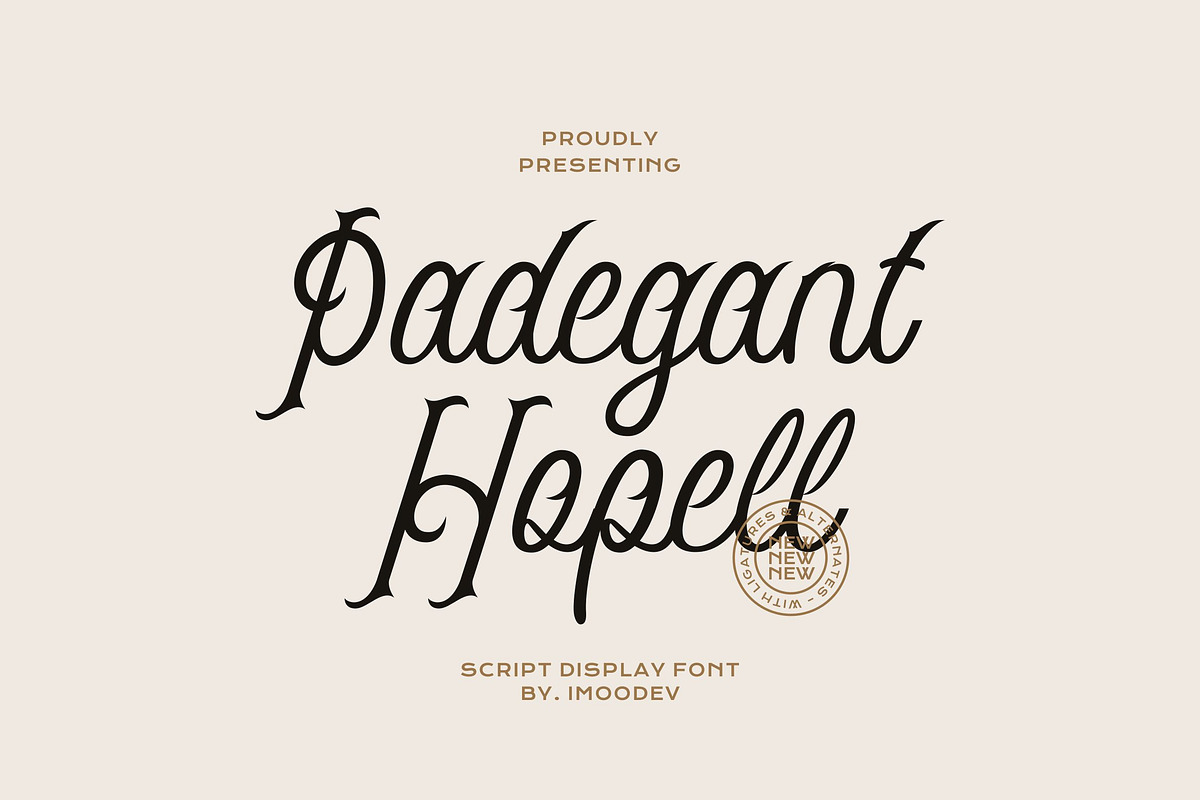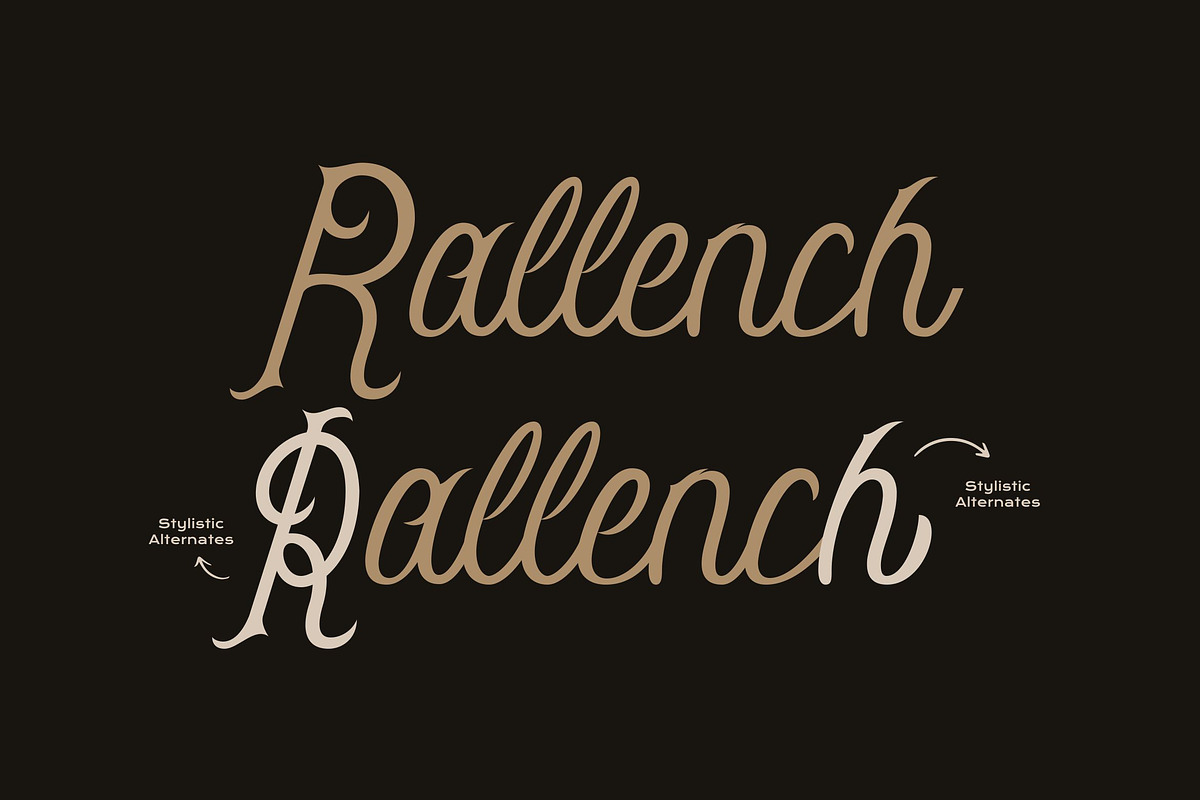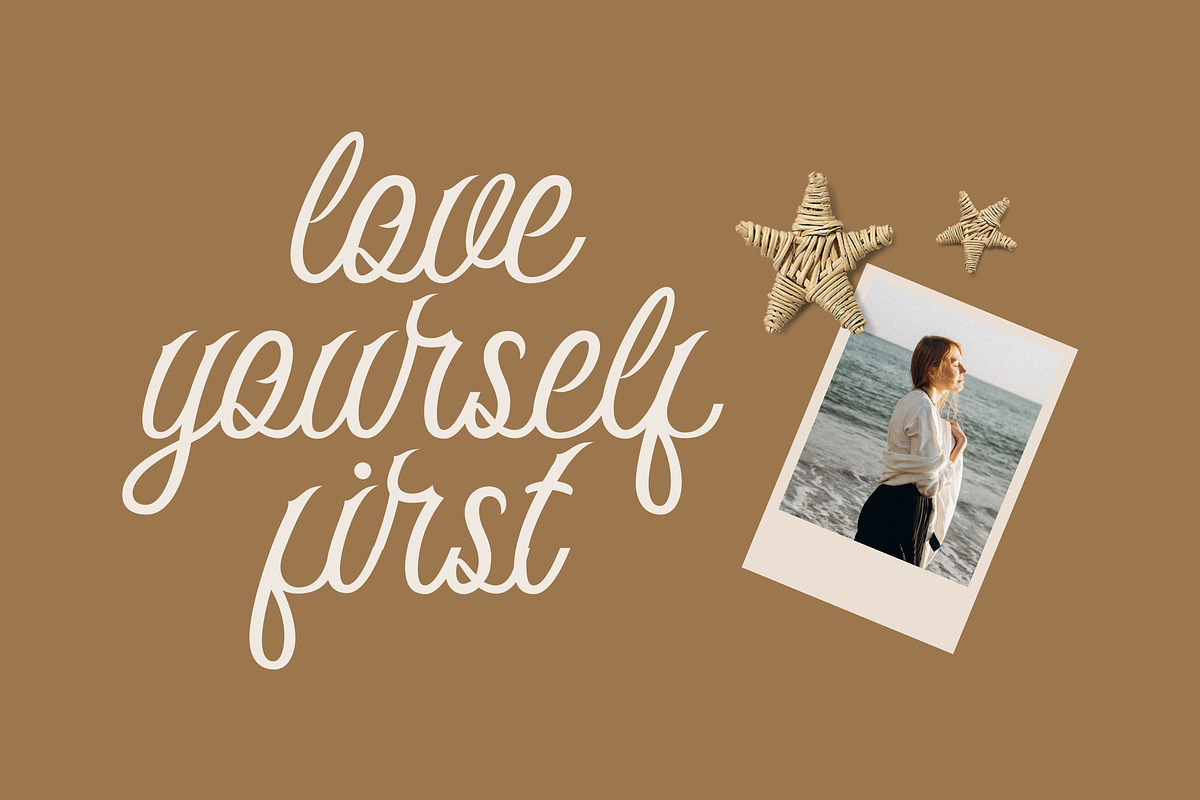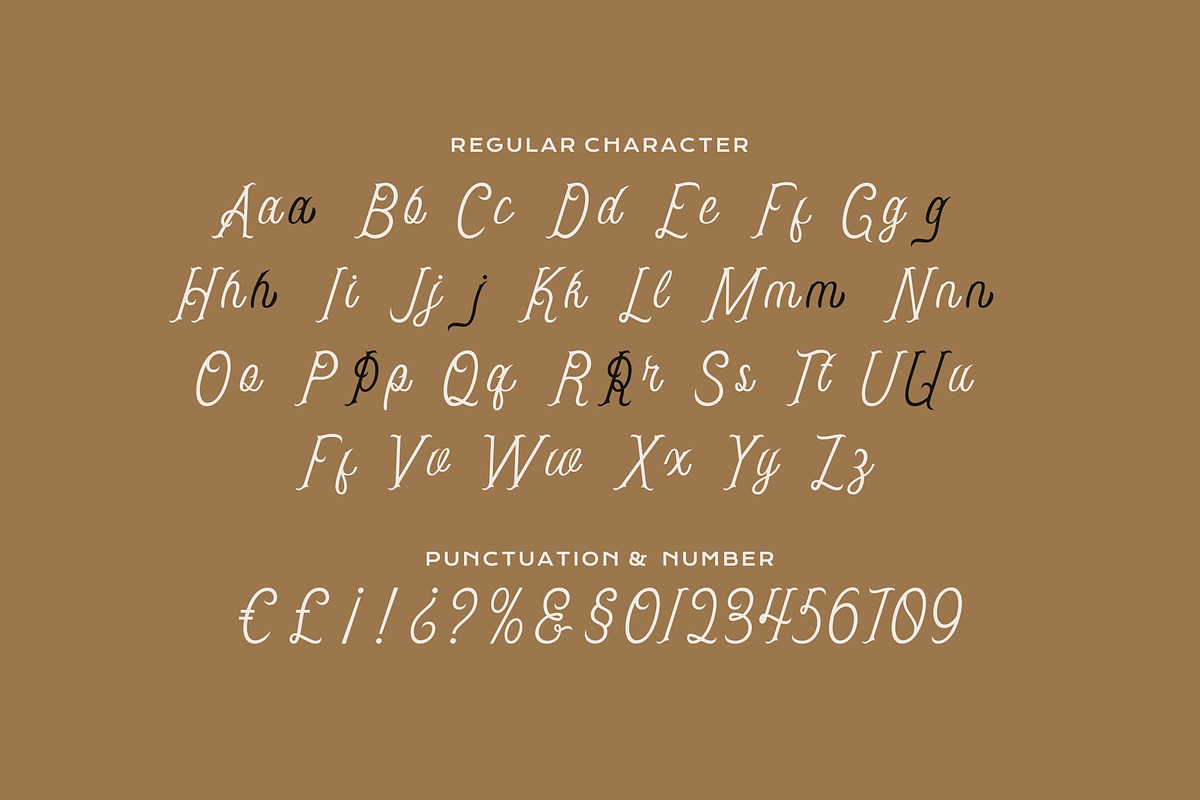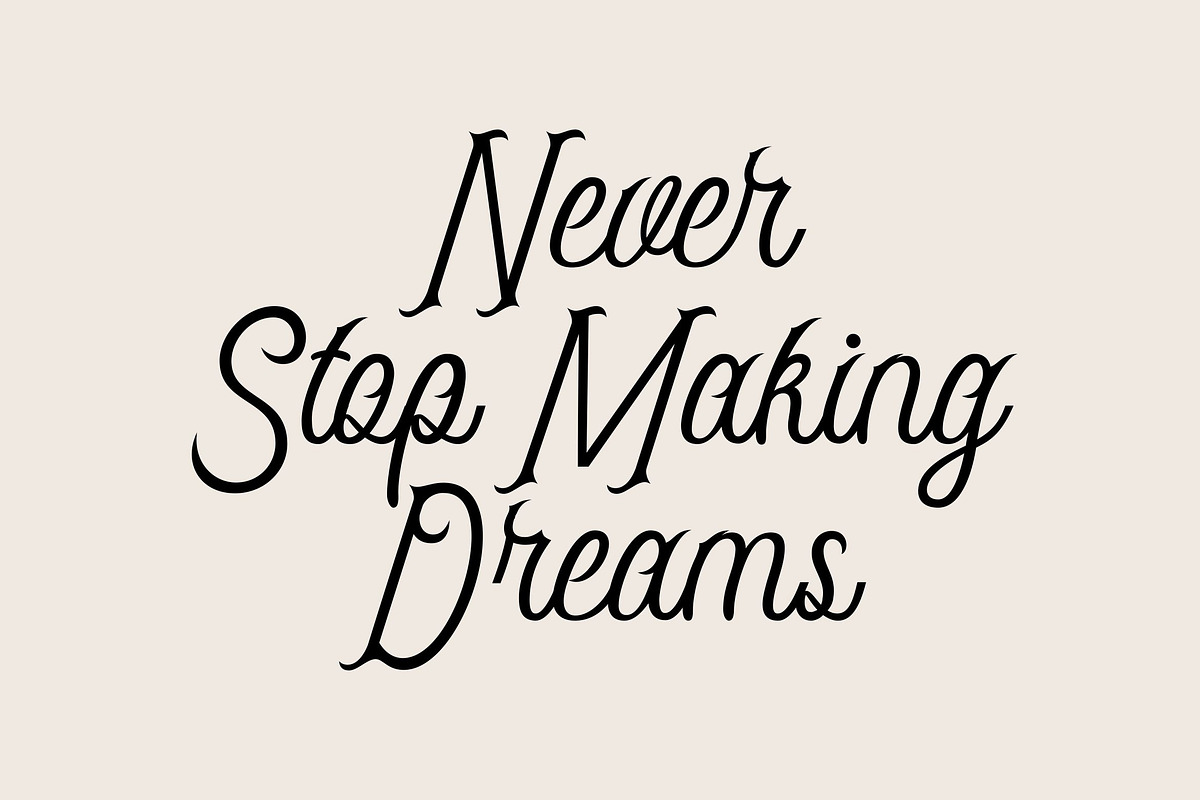
Padegant Hopell
Padegant Hopell is handwriting font with visual elegance, smooth curves, and beautiful ligatures clear, making your work look true and attractive.
- Punctuation, Number, and Symbol
- Multilingual Support ÀÁÂÃÄÅÆÇÈÉÊËÌÍÎÏÐÑÒÓÔÕÖØÙÚÛÜÝ